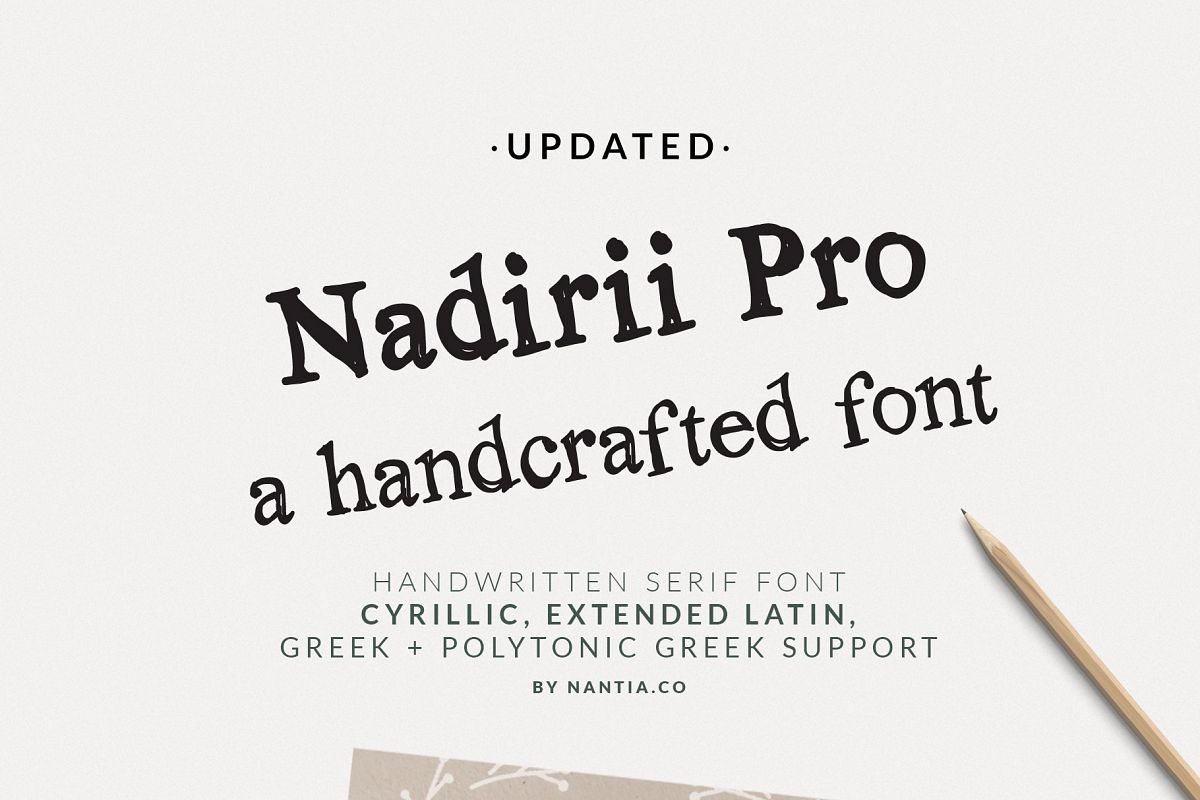
Nadirii Pro Font Greek, Cyrillic Font
Nadirii Pro Font Greek, Cyrillic Font is a display font with support Greek / Greek polytonic and extended Latin characters.Nadirii Pro Font Handcrafted is a typeface with a nostalgic touch and the lost sibling of Nadira Pro Font.  This font with support for over 30 languages can be a perfect match for all your food packaging projects and for branding your organic handcrafted products. It can be an ideal typeface for storytellers, too! The crafty feeling of this font is pairing perfectly with illustrations and book covers.
• Latin Character Set
• Greek Character Set
• Greek Polytonic Character Set
• Punctuation marks
Nadirii Pro Font supports the following languages:
Albanian, Basque, Bosnian, Breton, Catalan, Chamorro, Chichewa_nyanja, Croatian, Czech, Danish, Dutch, English, Estonian, Faroese, Finnish, French, Frisian, Galician, German, Polytonic Greek, Greek, Hungarian, Icelandic, Italian, Latvian, Lithuanian, Malagasy, Maltese, Norwegian, Polish, Portuguese, Romanian, Slovak, Slovenian, Spanish, Swedish, Turkish, Welsh, Alsatian, Aragonese, Arapaho, Aromanian, Arrernte, Asturian, Aymara, Bislama, Cebuano, Cheyenne, Cimbrian, Corsican, Fijian, French_creole, Friulian, Genoese, Gilbertese, Greenlandic, Guarani, Haitian_creole, Hawaiian, Hiligaynon, Hmong, Hopi, Ibanag, Iloko_ilokano, Indonesian, Interglossa_glosa, Interlingua, Irish_gaelic, Istro-romanian, Jerriais, Kashubian, Kurdish_kurmanji, Ladin, Lojban, Lombard, Low_saxon, Luxembourgeois, Manx, Maori, Megleno-romanian, Mohawk, Nahuatl, Norfolk_pitcairnese, Northern_sotho, Occitan, Oromo, Pangasinan, Papiamento, Piedmontese, Potawatomi, Rhaeto-romance, Romansh, Rotokas, Sami_inari, Sami_lule, Samoan, Sardinian, Scots_gaelic, Seychelles_creole, Shona, Sicilian, Somali, Southern_ndebele, Southern_sotho, Swahili, Swati_swazi, Tagalog_filipino_pilipino, Tahitian, Tausug, Tetum, Tok_pisin, Tongan, Tswana, Turkmen, Turkmen_latinized, Tuvaluan, Uyghur_latinized, Veps, Volapuk, Votic_latinized, Walloon, Warlpiri, Xhosa, Yapese, Zulu, Latinbasic, Ubasic